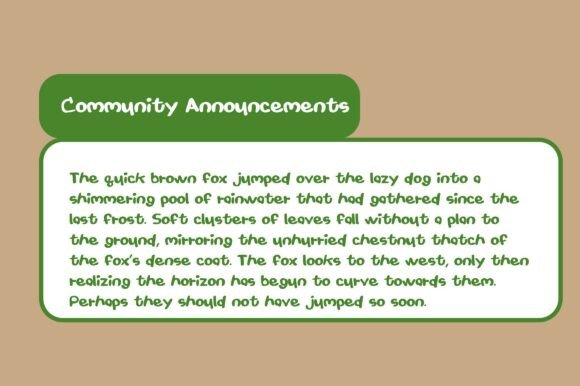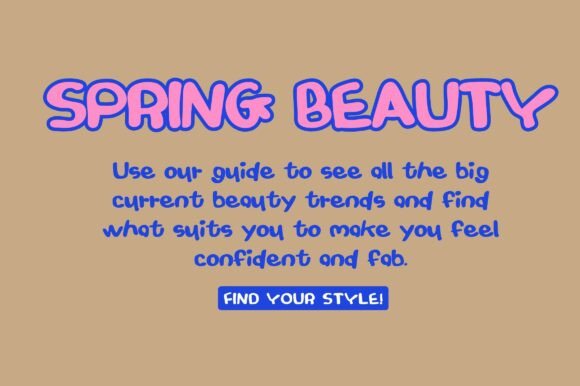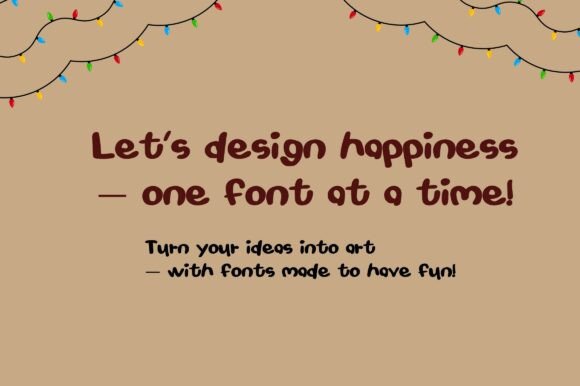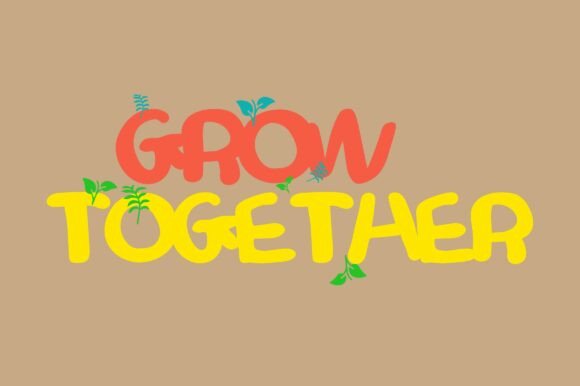
Introducing Cutemerry Font: The Ultimate Choice for Cozy and Charming Designs
Are you looking for a font that can add a touch of warmth and comfort to your designs? Look no further than Cutemerry Font, a soft and cozy handwritten typeface that wraps your words in charm and personality. With its gentle curves and natural flow, Cutemerry is perfect for a wide range of design projects that require a friendly and heartfelt look.
What Makes Cutemerry Font So Special?
Cutemerry Font is a unique and carefully crafted typeface that is designed to evoke a sense of comfort and coziness. Each letter is lovingly hand-written, giving your work a personal and warm feel that is perfect for designs that need a touch of personality. Whether you’re creating holiday greeting cards, children’s books, or cozy winter prints, Cutemerry Font is the perfect choice.
Cutemerry Font is incredibly versatile and can be used for a wide range of design projects, including:
• Holiday cards and gift tags: Add a touch of warmth and charm to your holiday cards and gift tags with Cutemerry Font.
• Children’s books and kids’ crafts: Cutemerry Font is perfect for children’s books, kids’ crafts, and other projects that require a friendly and approachable look.
• Cozy winter prints and quotes: Create beautiful and cozy winter prints and quotes with Cutemerry Font.
• Gift packaging and branding for handmade shops: Use Cutemerry Font to add a touch of personality to your gift packaging and branding for handmade shops.
• Printable planners and journals: Cutemerry Font is also perfect for printable planners and journals, adding a warm and cozy touch to your designs.
Why Choose Cutemerry Font?
There are many reasons why Cutemerry Font is the perfect choice for designers and crafters, including:
• Unique and handmade look: Cutemerry Font has a unique and handmade look that sets it apart from other fonts.
• Easy to read: Despite its playful and handwritten look, Cutemerry Font is easy to read and can be used for both digital and print projects.
• Versatile: Cutemerry Font can be used for a wide range of design projects, from holiday cards to printable planners.
• Warm and cozy feel: Cutemerry Font adds a warm and cozy feel to your designs, making it perfect for projects that require a touch of comfort and personality.
How to Use Cutemerry Font in Your Designs
Using Cutemerry Font in your designs is easy and straightforward. Here are a few tips to get you started:
• Pair it with other fonts: Cutemerry Font pairs well with other fonts, including serif and sans-serif fonts.
• Experiment with different colors: Cutemerry Font looks great in a variety of colors, from bright and bold to soft and pastel.
• Use it for headings and titles: Cutemerry Font is perfect for headings and titles, adding a touch of personality and charm to your designs.
• Use it for body text: Cutemerry Font can also be used for body text, adding a warm and cozy feel to your designs.
In conclusion, Cutemerry Font is a unique and versatile typeface that is perfect for designers and crafters who want to add a touch of warmth and comfort to their designs. With its gentle curves and natural flow, Cutemerry Font is perfect for a wide range of design projects, from holiday cards to printable planners. So why not give Cutemerry Font a try and see how it can add a touch of personality and charm to your designs?
✨ Perfect for: Holiday cards, winter quotes, kids’ crafts, cozy gift packaging, logos, and warm seasonal designs.